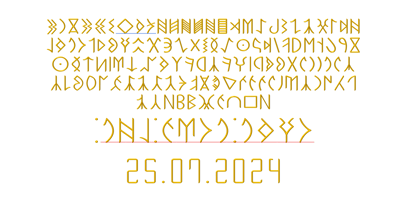
Ongunkan Old Turkic Talas Achiktash Font Family was designed by Osman Nuri ALKAN and published by Runic World Tamgacı. Ongunkan Old Turkic Talas Achiktash contains 1 styles and family package options. Old Turkic Talas Achiktash wooden stick inscription.Found in 1932 by I.F.Marinyanin in ancient mines while digging a geological exploratory well in the Achiktash deposit near a station Dmitrievskaya on.Stored in State Hermitage.